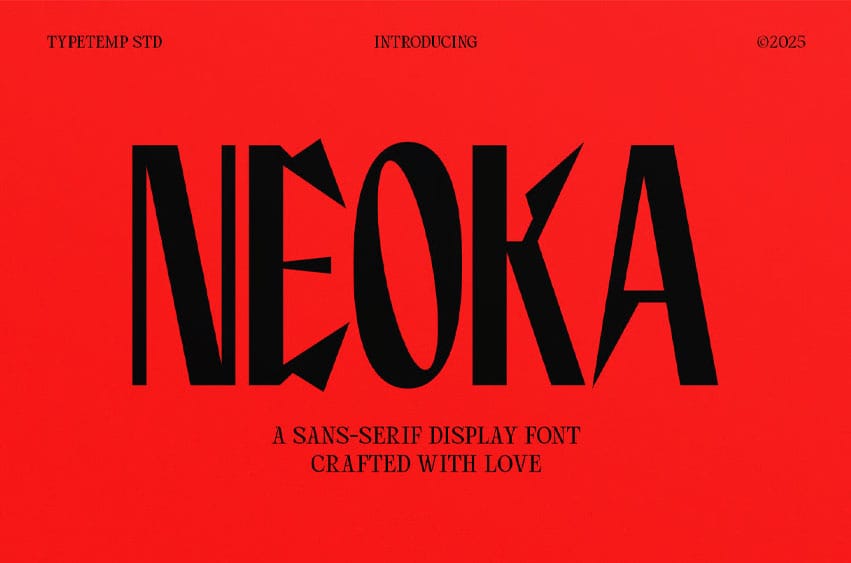
Neoka Font is a bold sans-serif display font crafted to deliver strong impact and modern character. Defined by sharp cuts, geometric shapes, and confident proportions, Neoka stands out with a powerful editorial and contemporary feel.
Designed for eye-catching headlines and statement typography, Neoka is perfect for posters, branding, magazine covers, advertising, and visual identities that demand attention. Its distinctive letterforms balance structure and creativity, making it ideal for modern and experimental design projects.
Whether used in print or digital media, Neoka brings clarity, attitude, and bold expression to your typography.
Perfect for:
- Headlines & titles
- Posters & advertising
- Editorial & magazine layouts
- Branding & logo design
- Album covers & visual identities
- Modern and experimental projects
- Bold sans-serif display style
- Sharp and dynamic letterforms
- Strong visual impact
- Modern editorial aesthetic
- Suitable for print and digital use
Make a bold statement with the modern energy of Neoka.